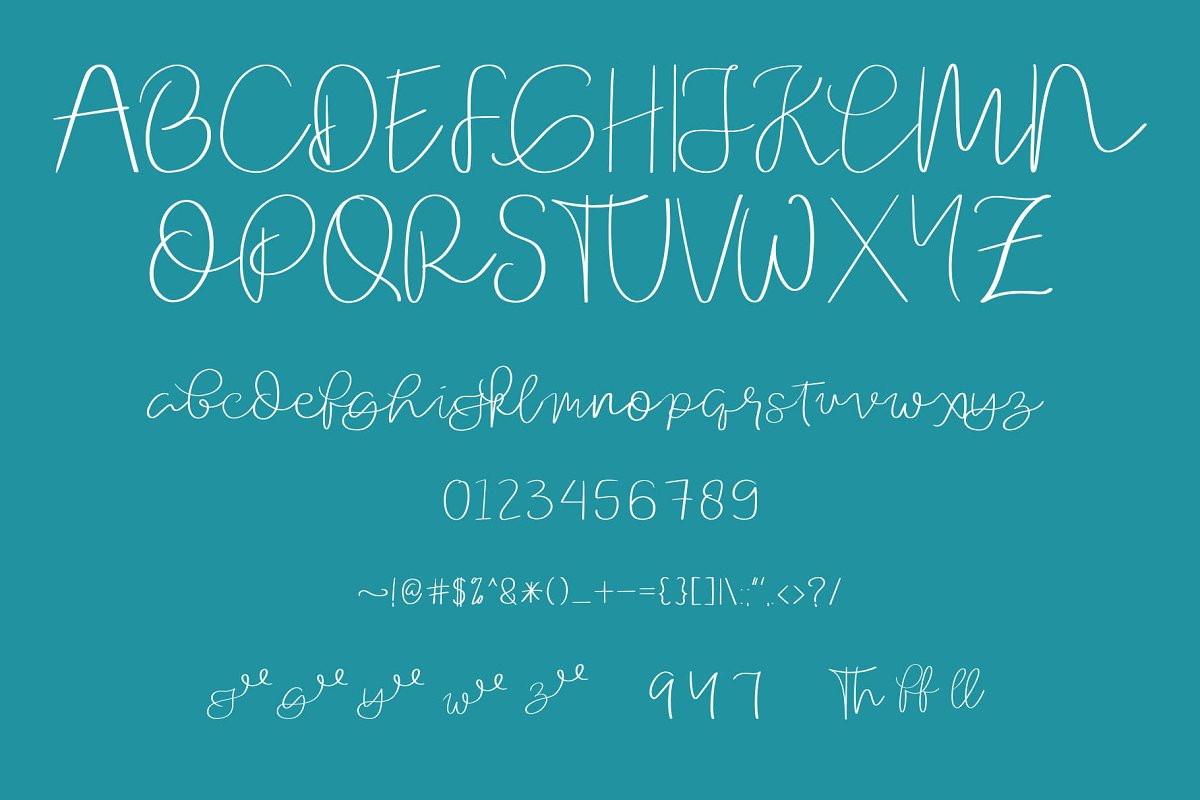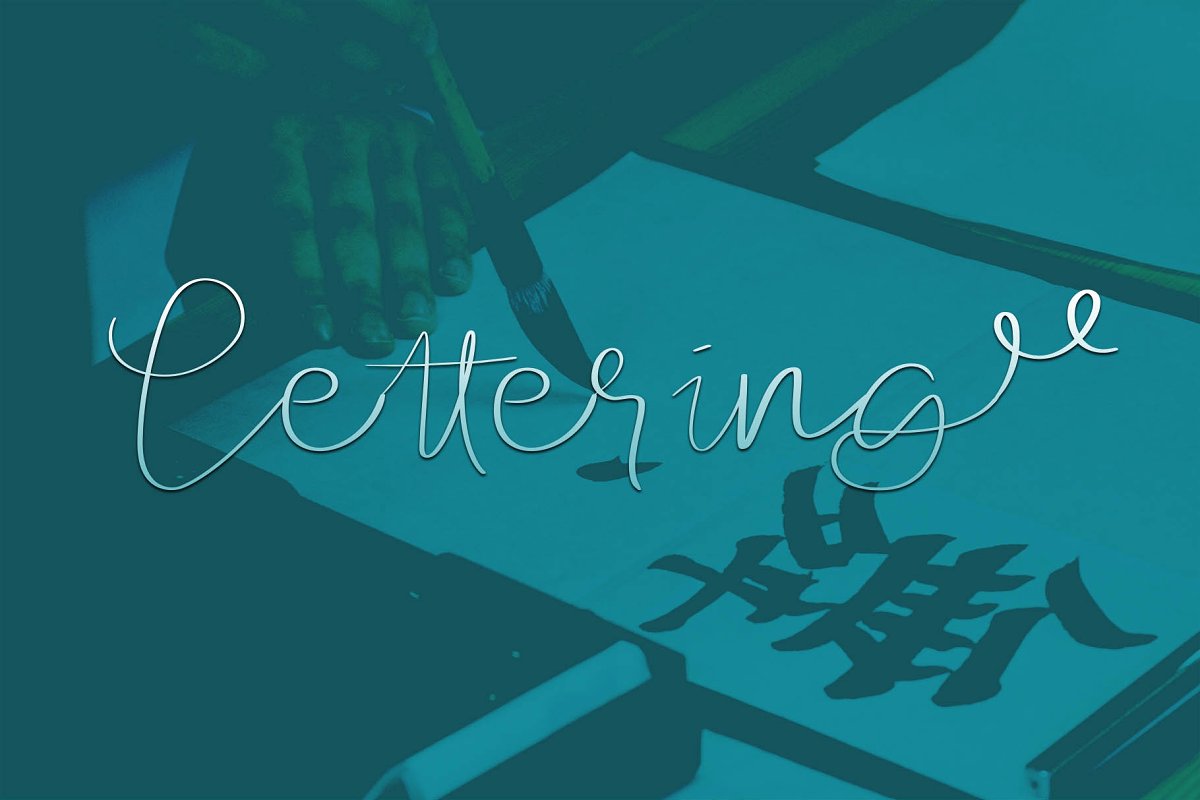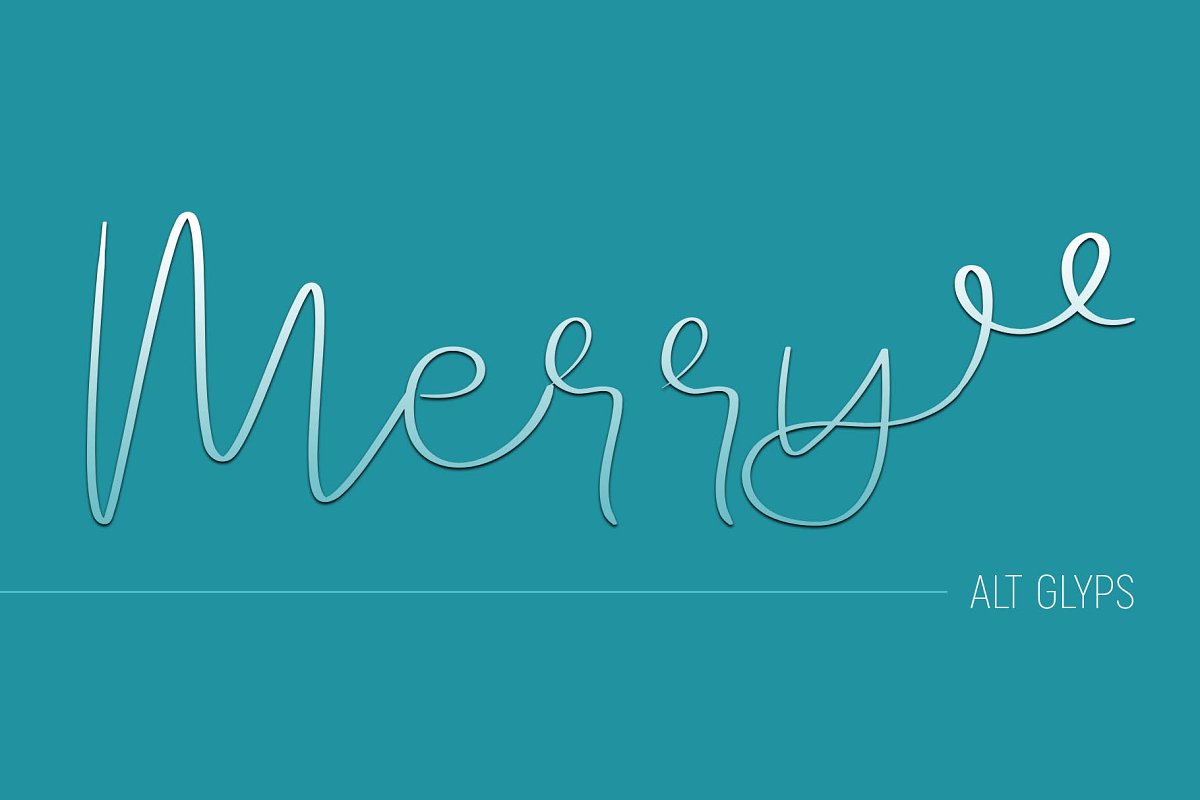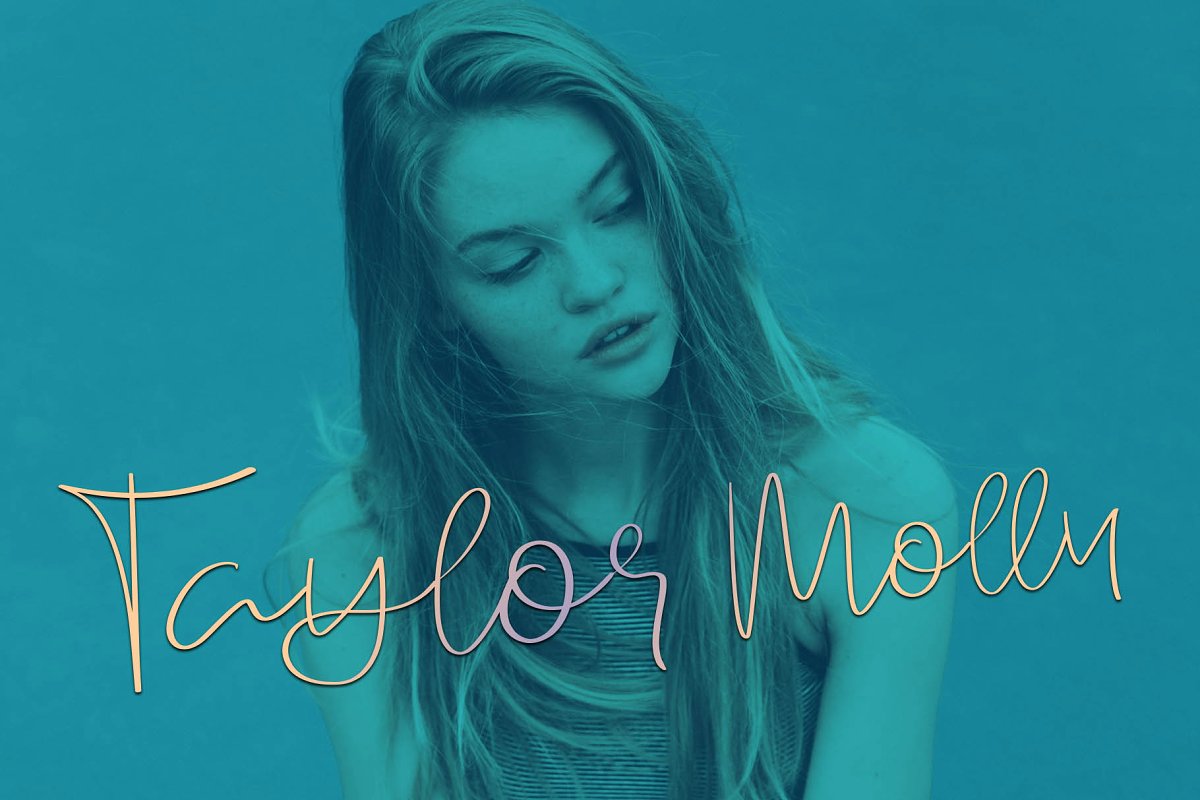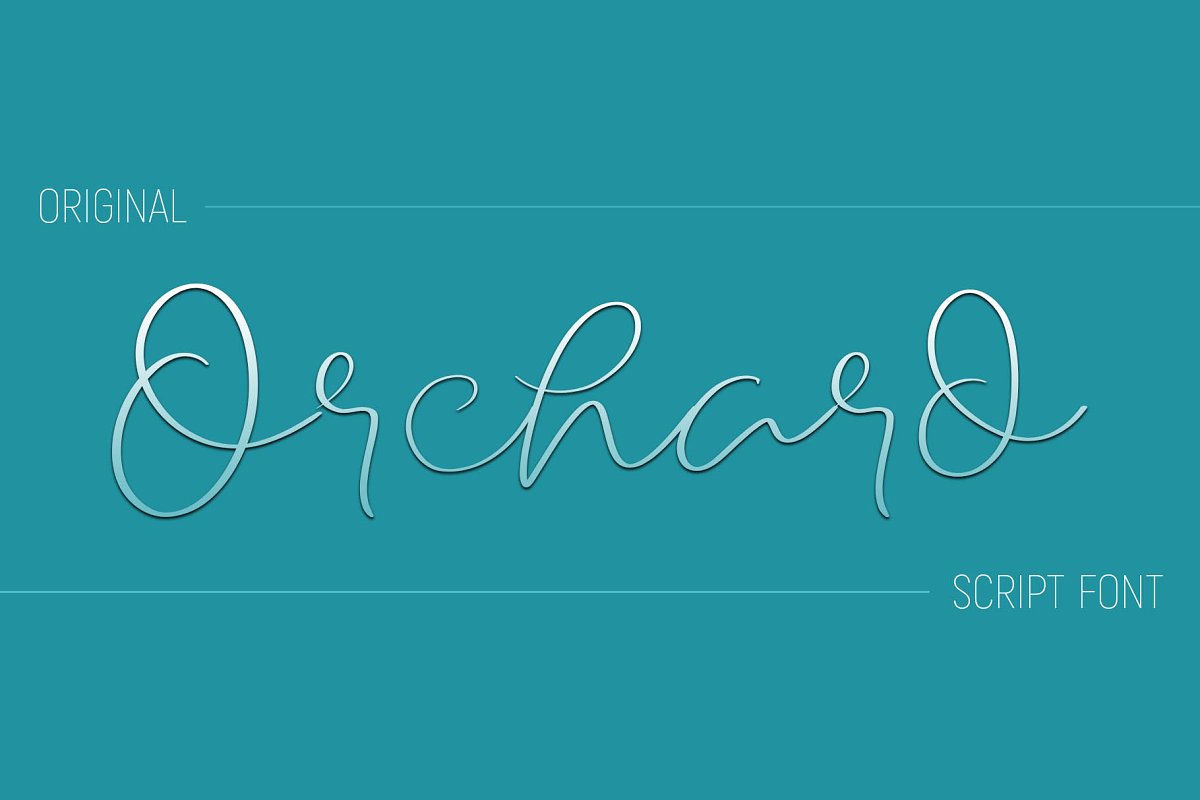
Orchard Script Font
Presenting Orchard Font. A font that looks absolutely handwritten and created by hand. This font is especially for you if you need to add tenderness to your project. Its’s perfect for you to give your design an authentic touch. this is an original hand writing font so you can also use this for any logo or signature design.